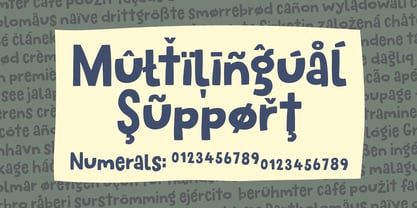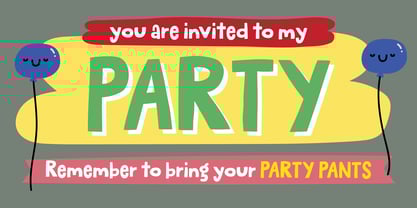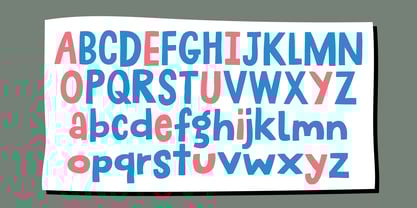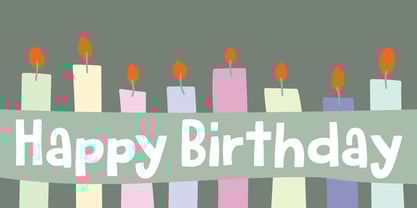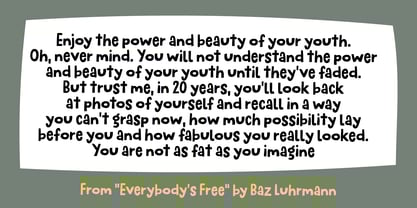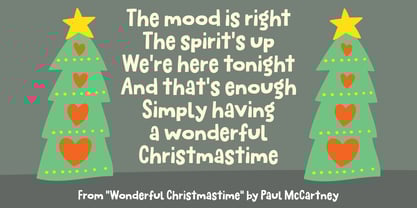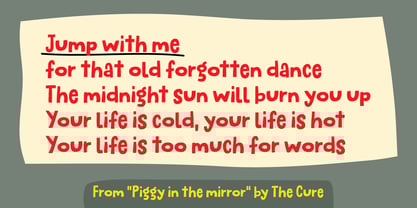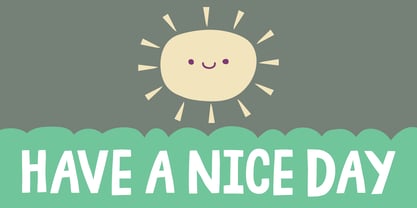
Jump with me
by Bogstav
The Jump with me Font Family was designed by Jakob Fischer and published by Bogstav. Jump with me contains 2 styles and family package options.
“Jump with me” is playful and unpredictable, yet super legible. Along with smooth curves and bouncy x-height, all you need to do to start the party is to type your text. And BOOM! Jump with me does the dancework :) Originally created as a sketched handmade font, but I personally cleaned up each and every letter to create this super-deliciously and mouth watering comic font!